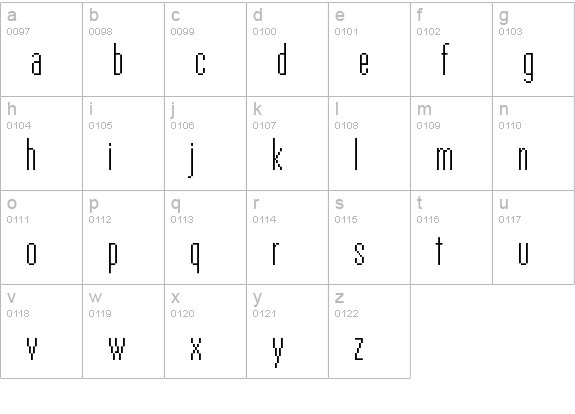
UniversalNineTeen Font Details
UniversalNineTeen font is a stunning and versatile typeface that effortlessly combines elegance with modernity. With its sleek and sophisticated design, this font captures attention and adds a touch of refinement to any project. What sets UniversalNineTeen font apart is its unique ability to adapt to various styles and themes. Whether you're designing a logo, creating a website, or working on a print publication, this font can seamlessly integrate into any creative endeavor. Its clean lines and balanced proportions make it a perfect choice for both headings and body text. With its wide range of weights and styles, UniversalNineTeen font offers endless possibilities for customization. From bold and impactful to light and delicate, this font allows you to express your creativity and communicate your message effectively. But the best part? UniversalNineTeen font is free! That's right, you can freely download this remarkable font at FontsMarket.com. No need to worry about breaking the bank or compromising on quality. This font is readily available for anyone who wants to elevate their design projects without any cost. So why wait? Enhance your designs with the timeless beauty of UniversalNineTeen font. Download it for free today at FontsMarket.com and unlock a world of typographic excellence.